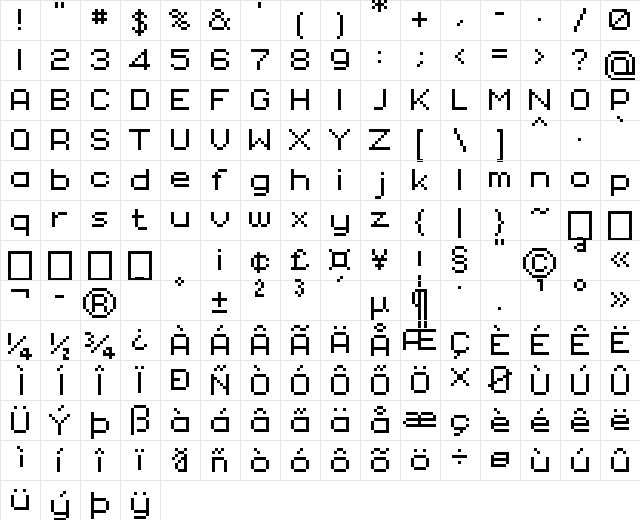
01Problematix Regular Font Preview
01Problematix Regular
01Problematix Regular Font Details
Design Context for 01Problematix Typeface
01Problematix offers clean, dependable letterforms without strong stylistic allegiance, making it a practical choice for designers who need flexibility.